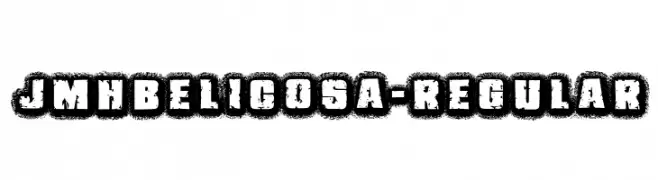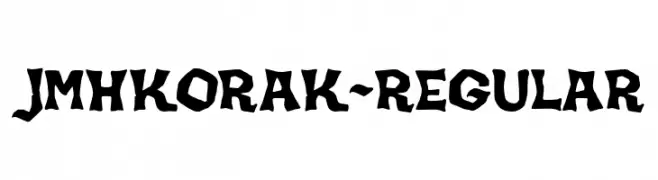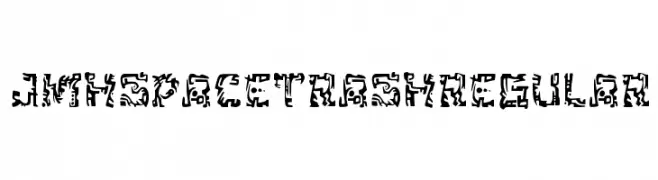
A bold, decorative font with a futuristic, space-themed aesthetic.
A bold, tribal-inspired font with sharp, angular edges and decorative elements.
An abstract, geometric font with decorative symbols replacing traditional characters.
A decorative, elongated font with geometric patterns and sharp angles.
A bold, slanted font with dynamic and energetic character design.
A decorative dingbat font with detective-themed silhouettes and illustrations.
A bold, hand-drawn font with a rugged and artistic style.
A bold, condensed font with dynamic characters and strong visual impact.